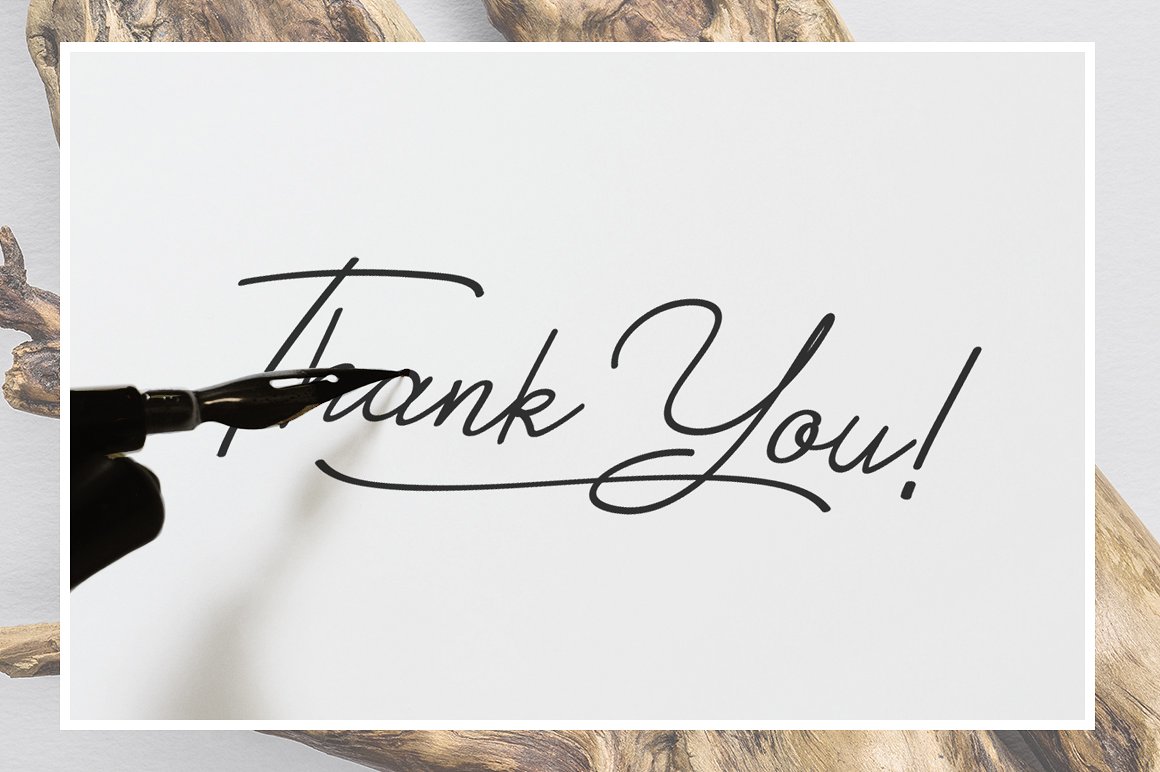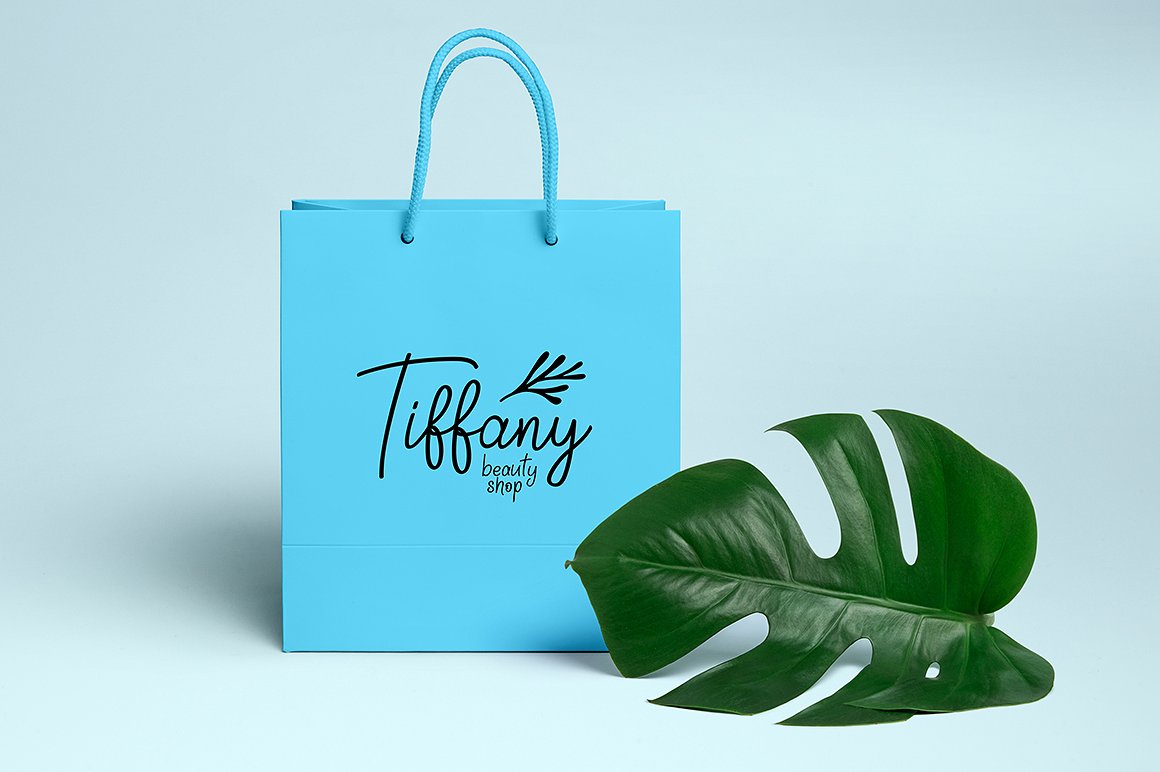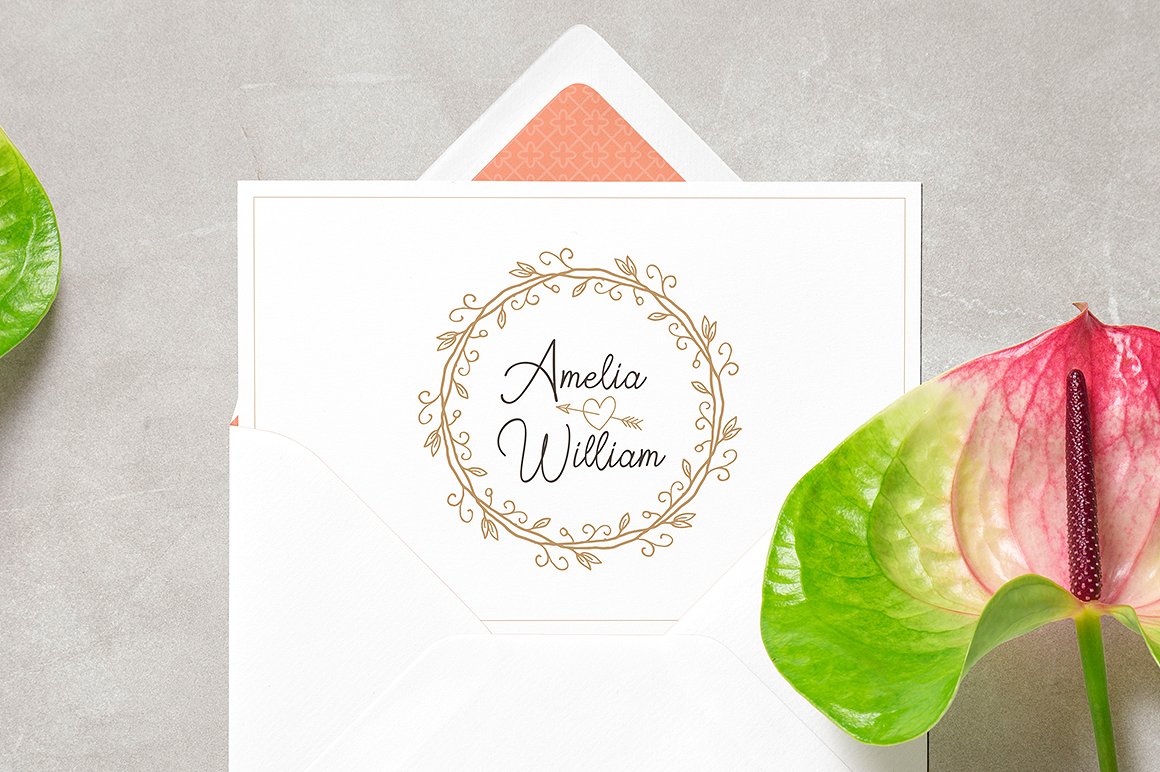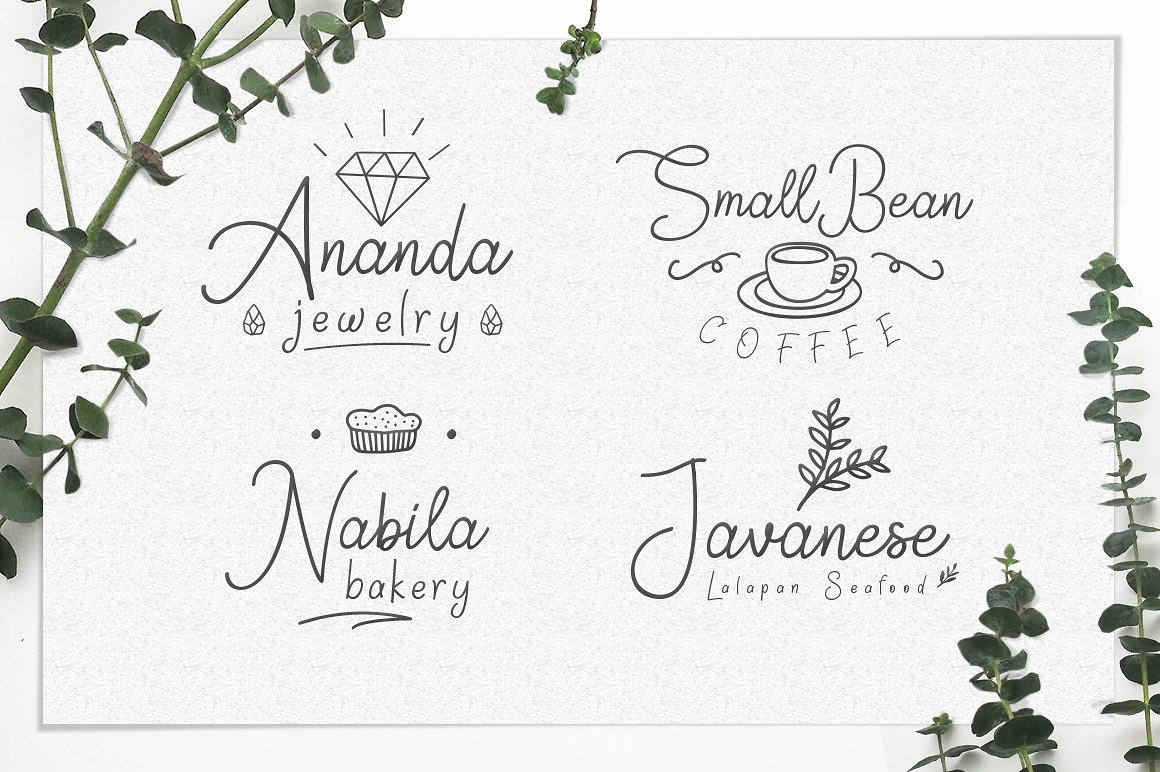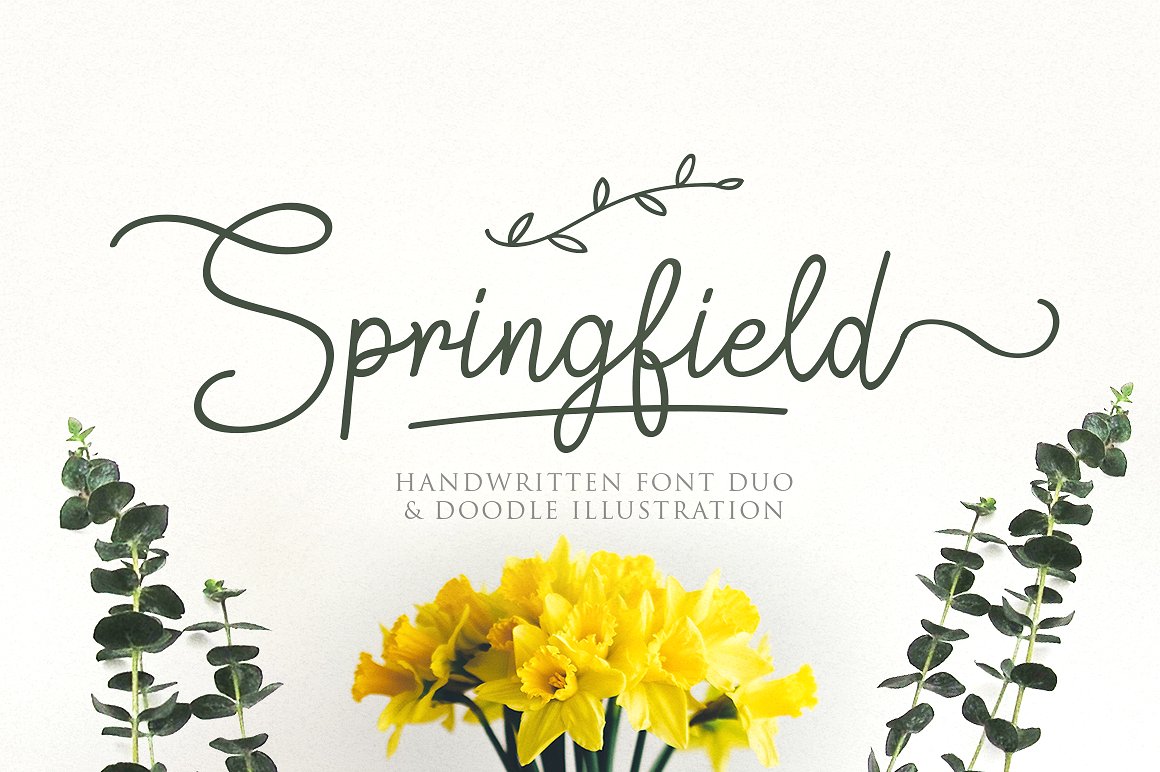
Springfield Script Font
Introducing Springfield. It is designed by Weape Design, this is a premium font, are sold on creativemarket, but it was great, it is free today for download. A Perfectly new font pair with a handy set of complimentary doodle Illustrations. Allowing you to create beautiful hand-made typography in an instant. With 2 different fonts, and a fun doodle illustration. It flows like a signature while you type it. Springfield is perfect for branding projects, logo, invitation, product packaging, tshirt design or simply as a stylish text overlay to any background image.